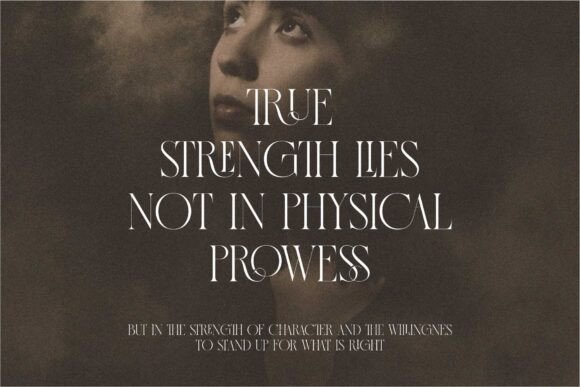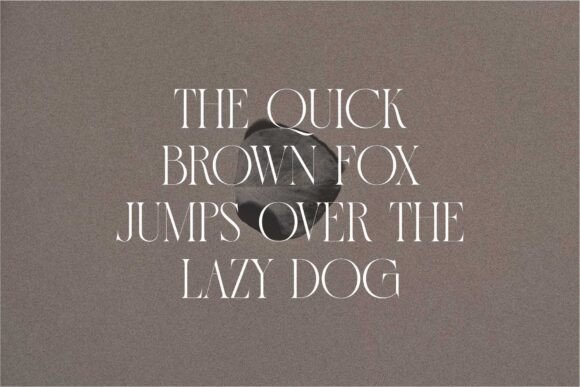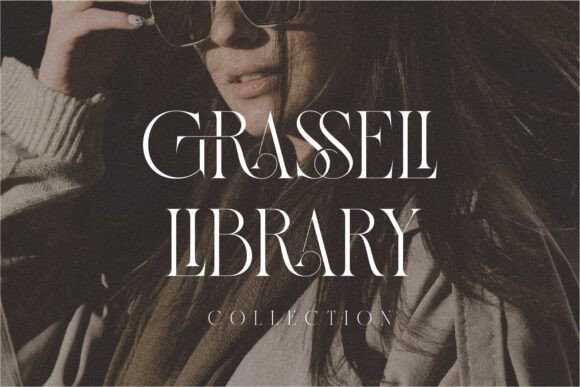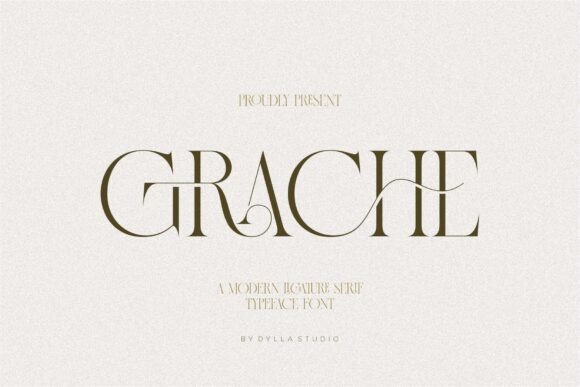
Introduction to Grache Font
Grache is a modern serif font, inspired by the famous minimalist logo perfect for the purposes of designing templates, brochures, videos, advertising branding, logos, invitation, layout design, elegant crafting, beauty design and more.
Key Features of Grache Font